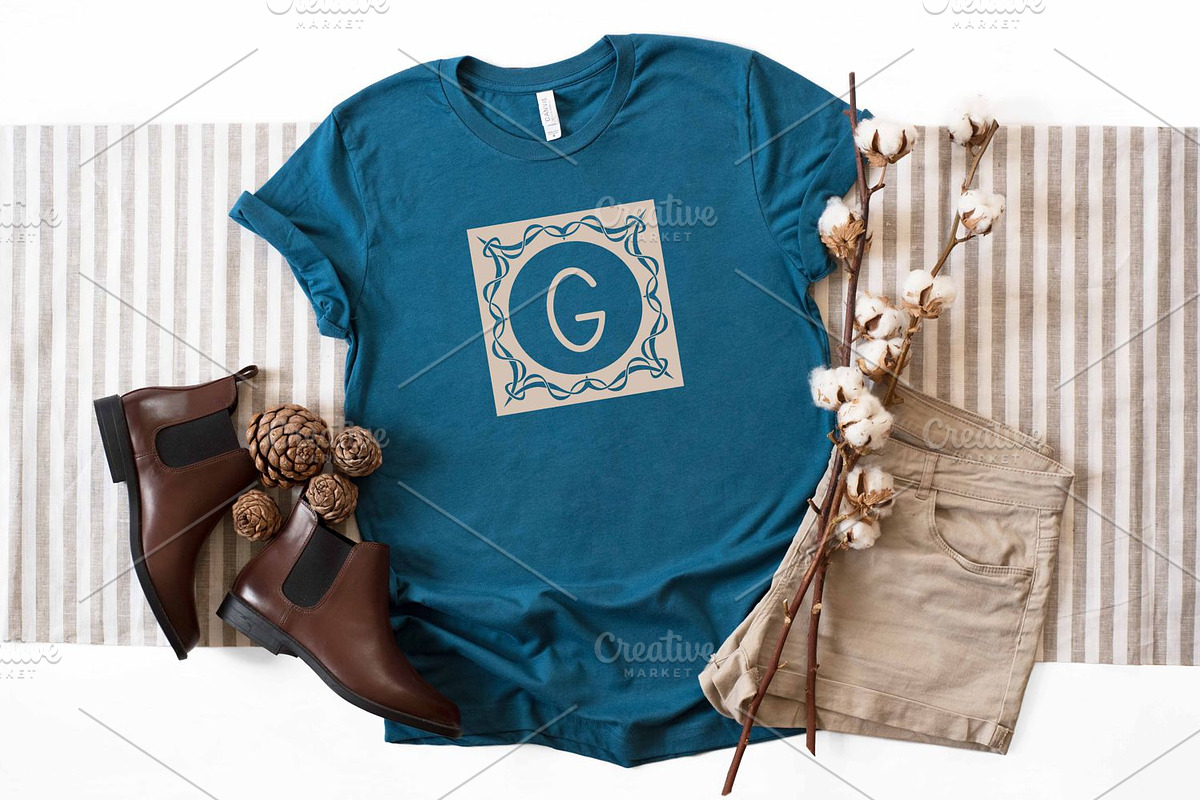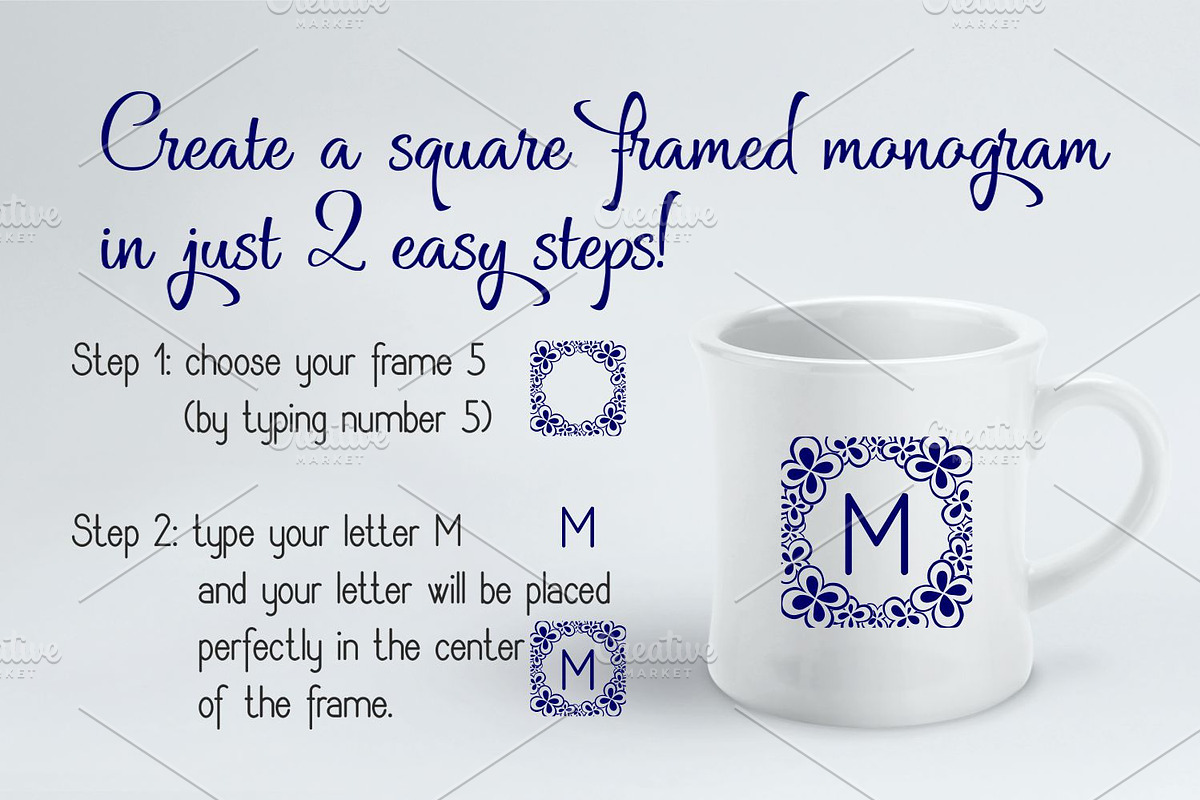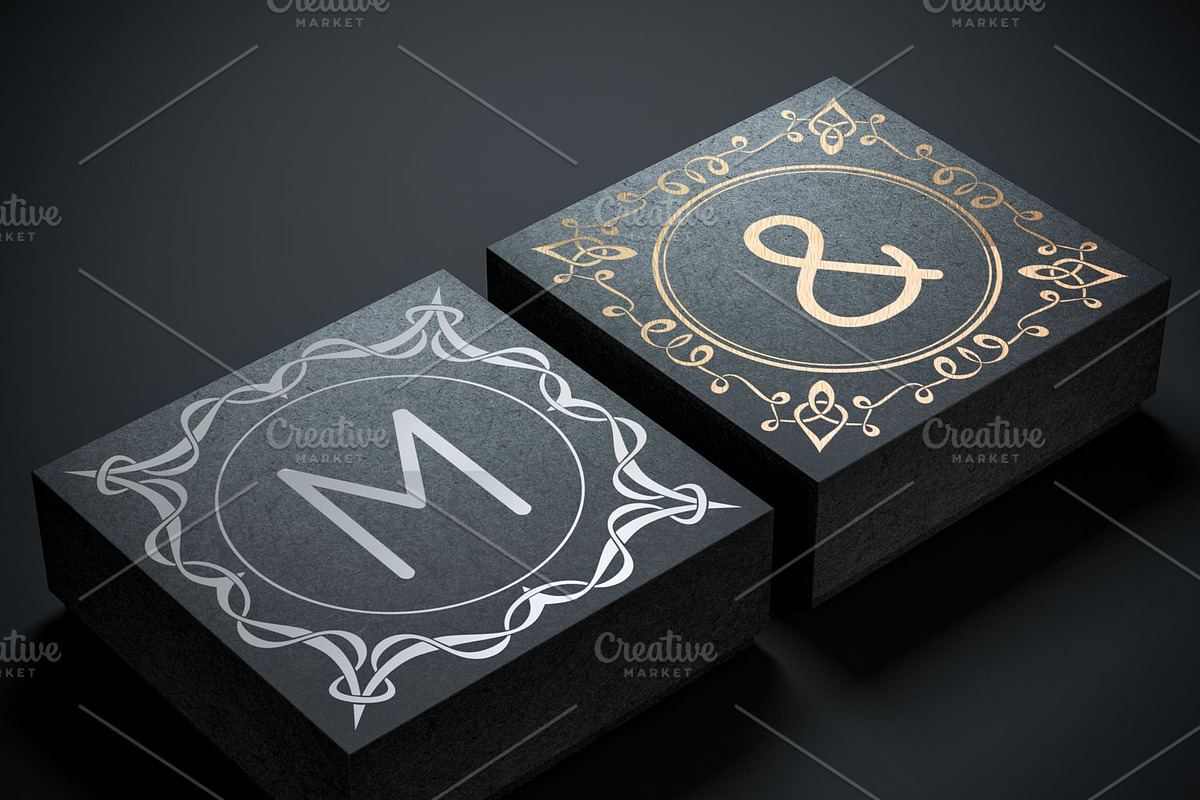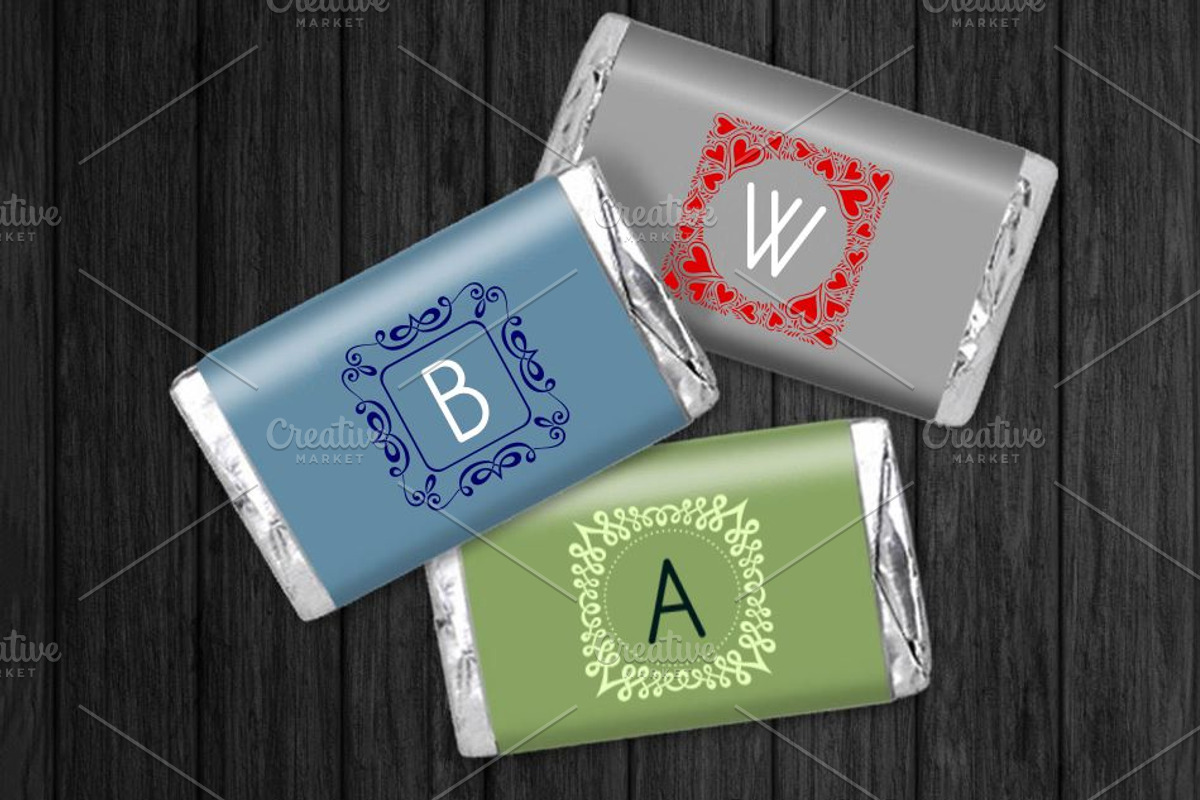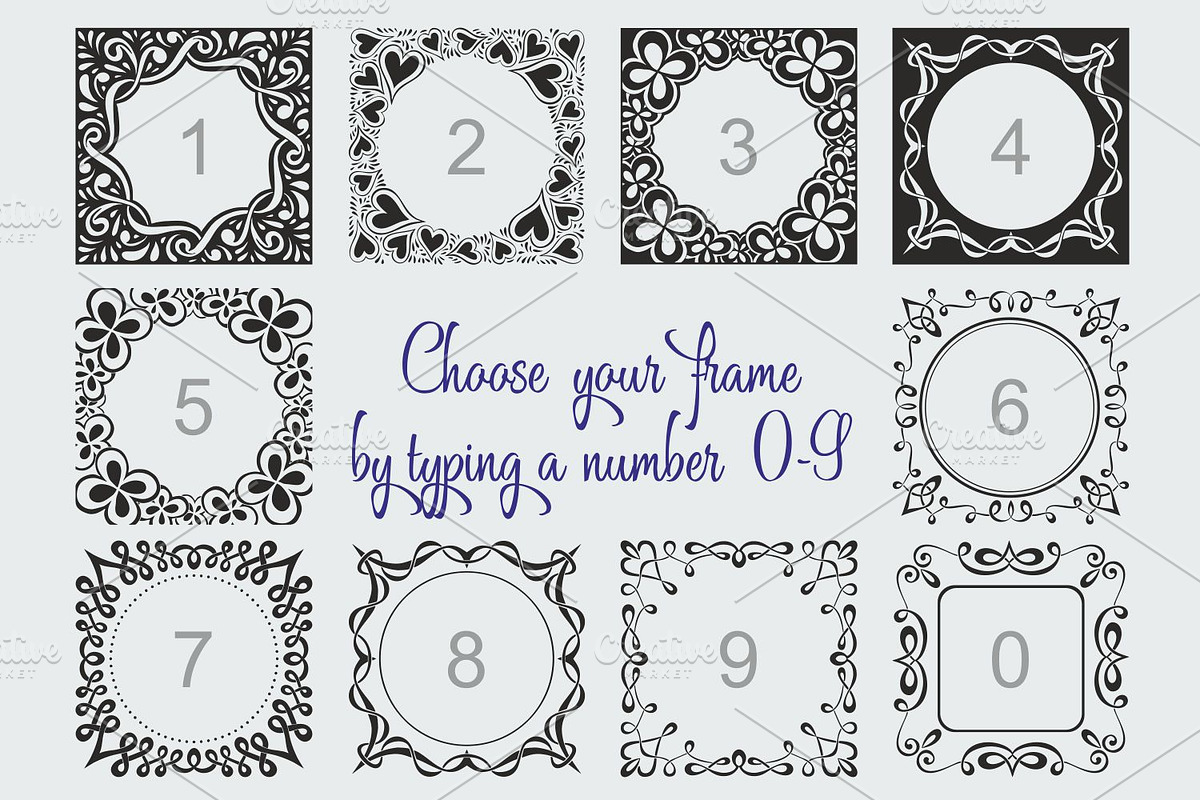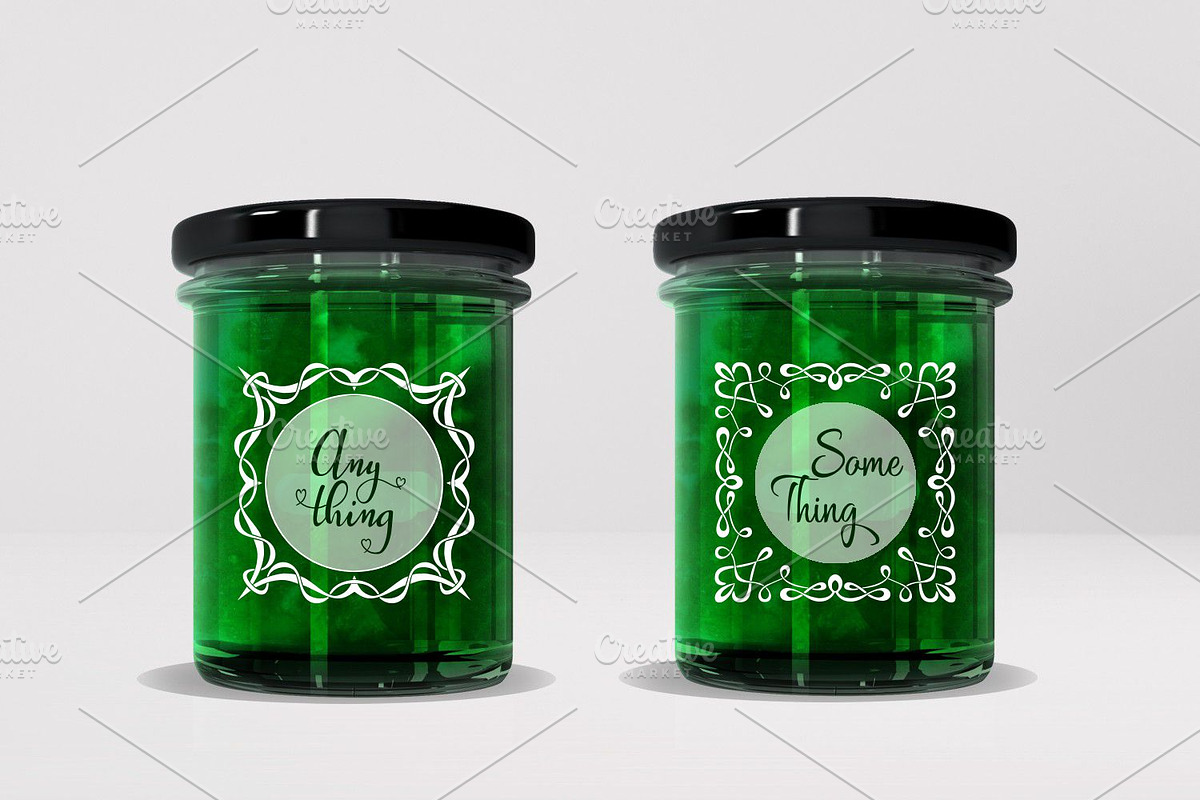
Square Monogram Framer
Square Monogram Framer Font
With this font you’ll be able to create a square framed monogram in just 2 easy steps!
Step 1 – Type a number (choose a number 0-9 to select a frame)
Step 2 – Type your letter (without space) and your letter will be placed perfectly in the center of the frame.